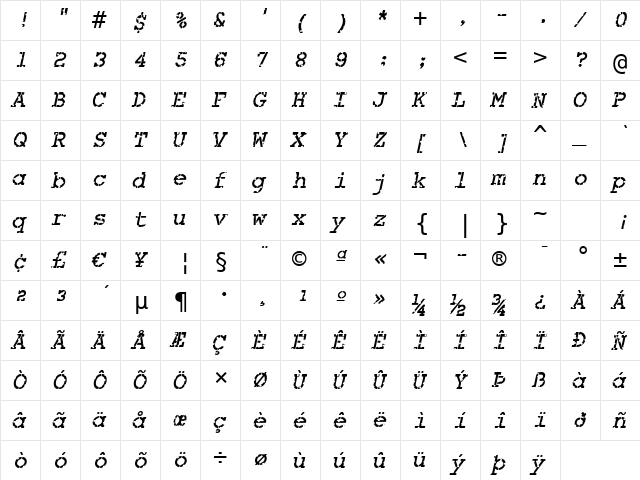
Combat Tested BTN Oblique
Design Context for Combat Tested BTN Typeface
Combat Tested BTN draws on military and industrial lettering traditions, with forms that communicate strength and precision. Its italic angle brings a sense of urgency and motion to the letterforms.
Designed for tactical branding, military-inspired apparel, action game UI, and utility-focused signage.
Pro Tip: Use Combat Tested BTN at medium-to-large sizes where its utilitarian structure can be appreciated — the character detail gets lost at small sizes.